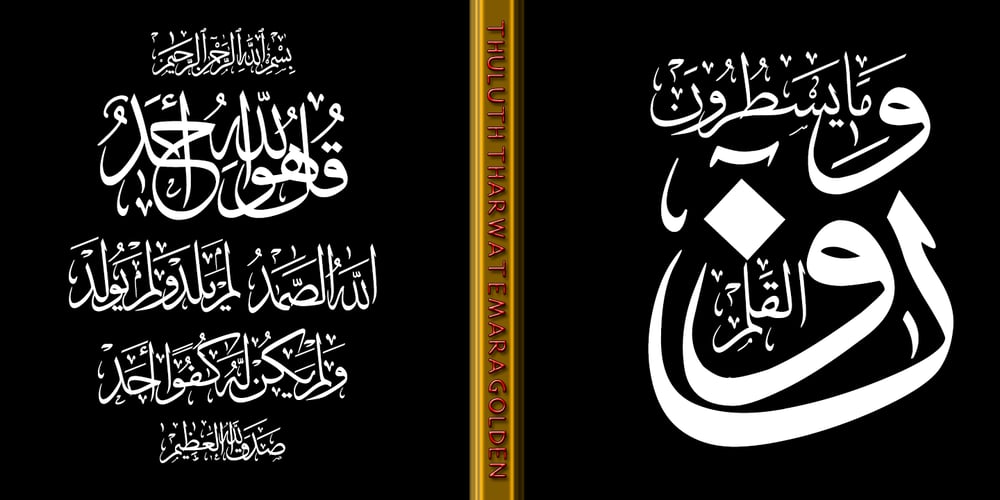
TE Thulth Golden Font Family was designed by Tharwat Mohamed Emara and published by Tharwat Emara. TE Thulth Golden contains 1 styles and family package options. Thulth font (Thulth Tharwat Emara Golden) distinguished by beautiful artistic structures and ready-made sentences to help you design the designer designs and paintings easily. It also retains the beauty of its original Arabic calligraphy. This font can be used in titles of books, magazines and Quranic verses. Also specialized in printing on clothes, Najaf and antiques. It is the first font that you can write complete sentences and Ayat of Quran by beautiful artistic structure like as those written by the calligrapher. It also simulates the handwriting and no need to calligraphy it when you have this font.